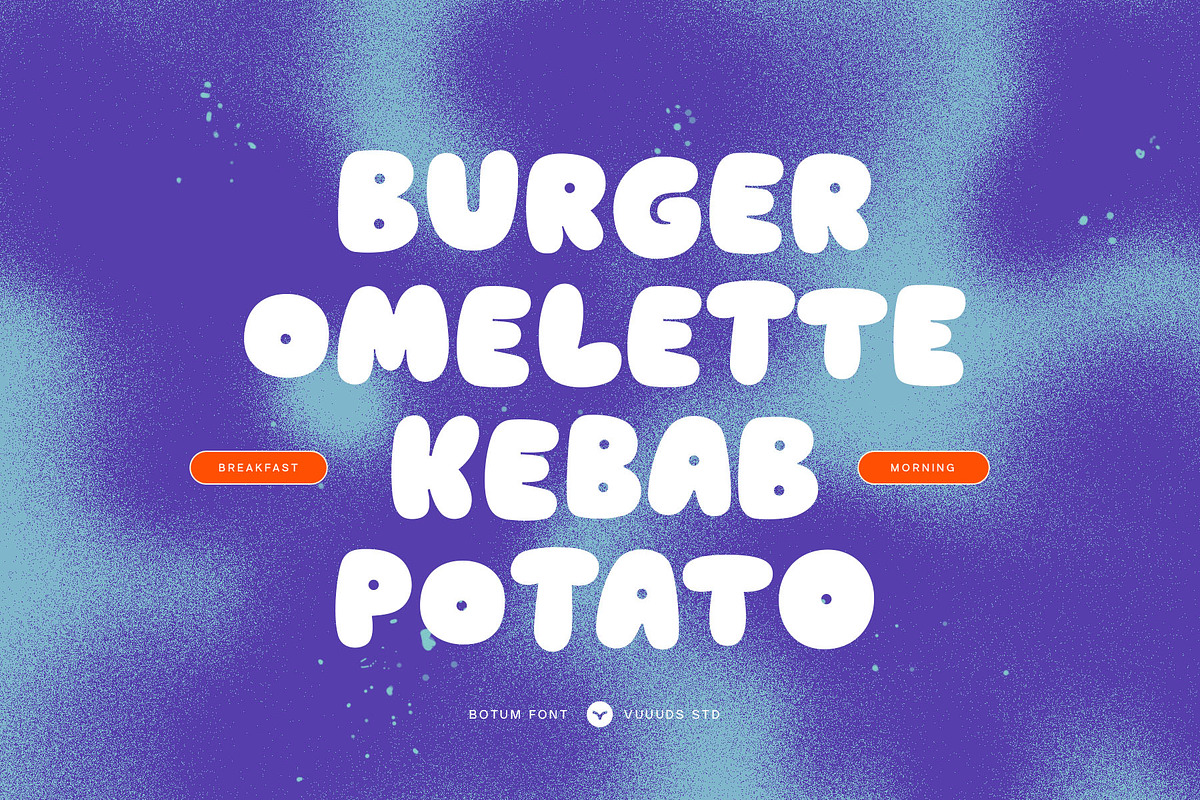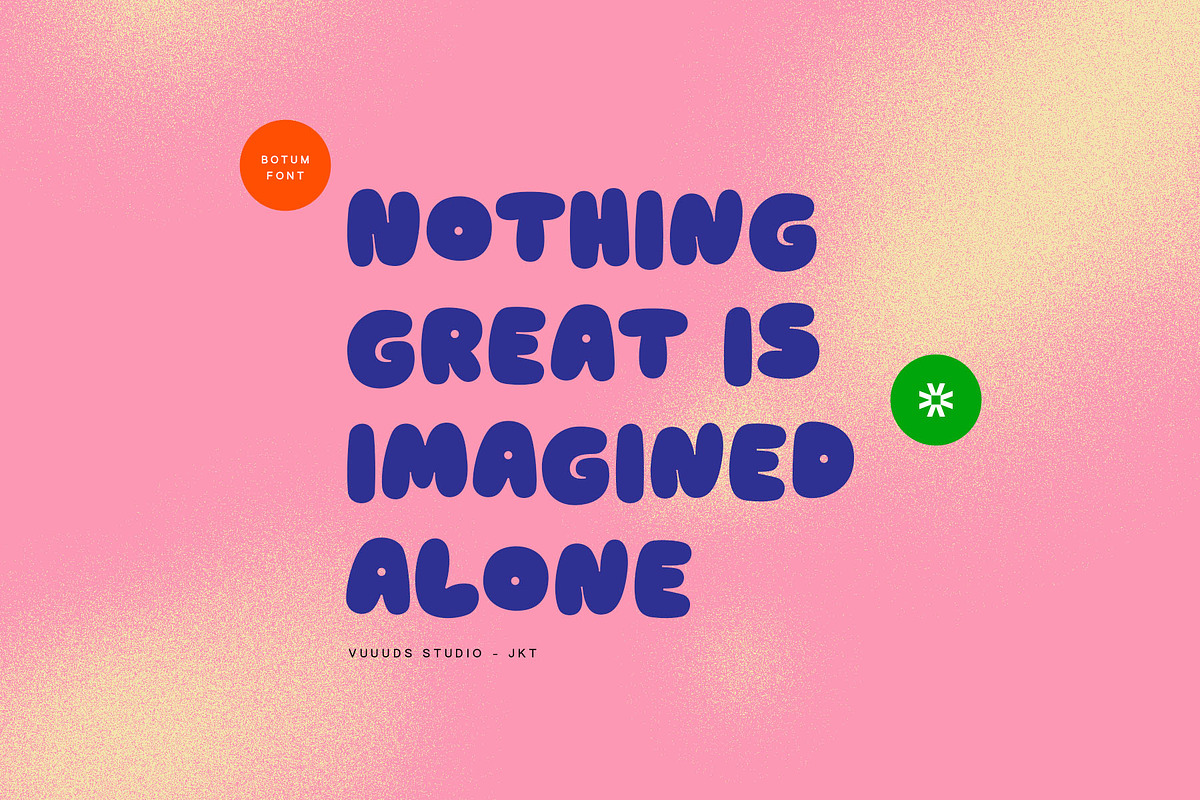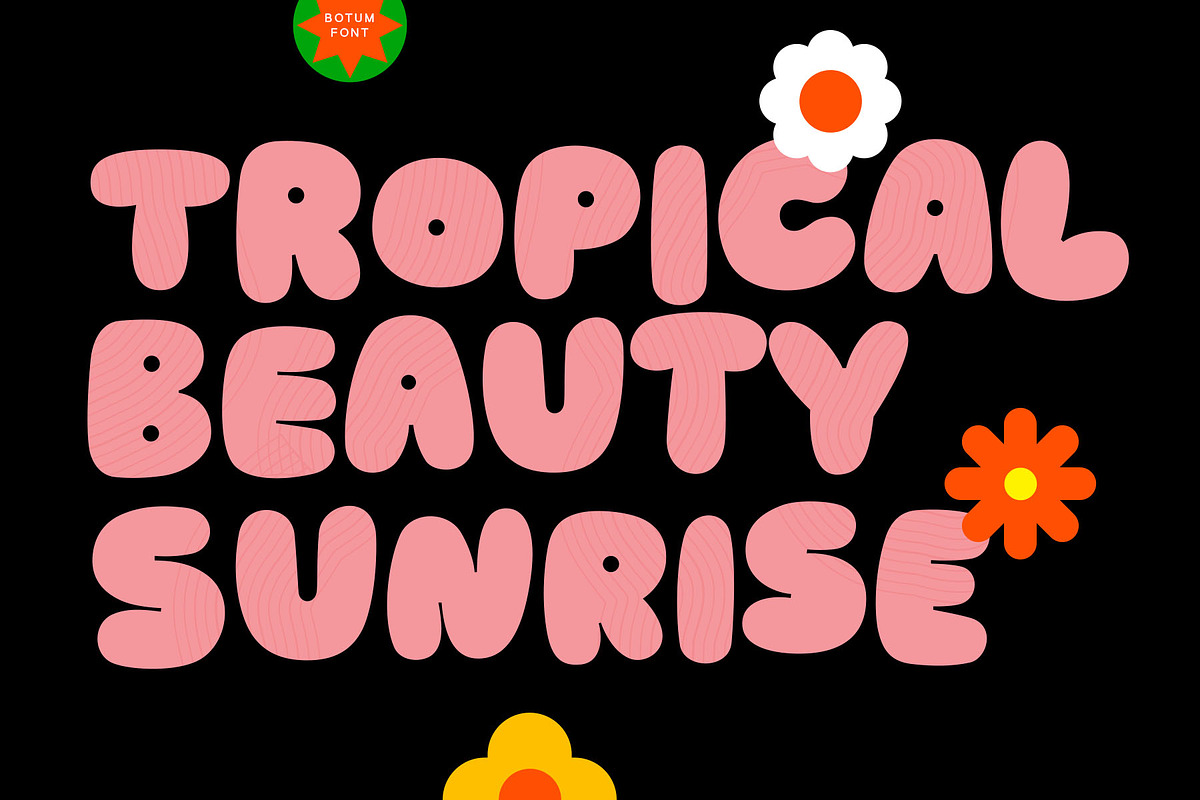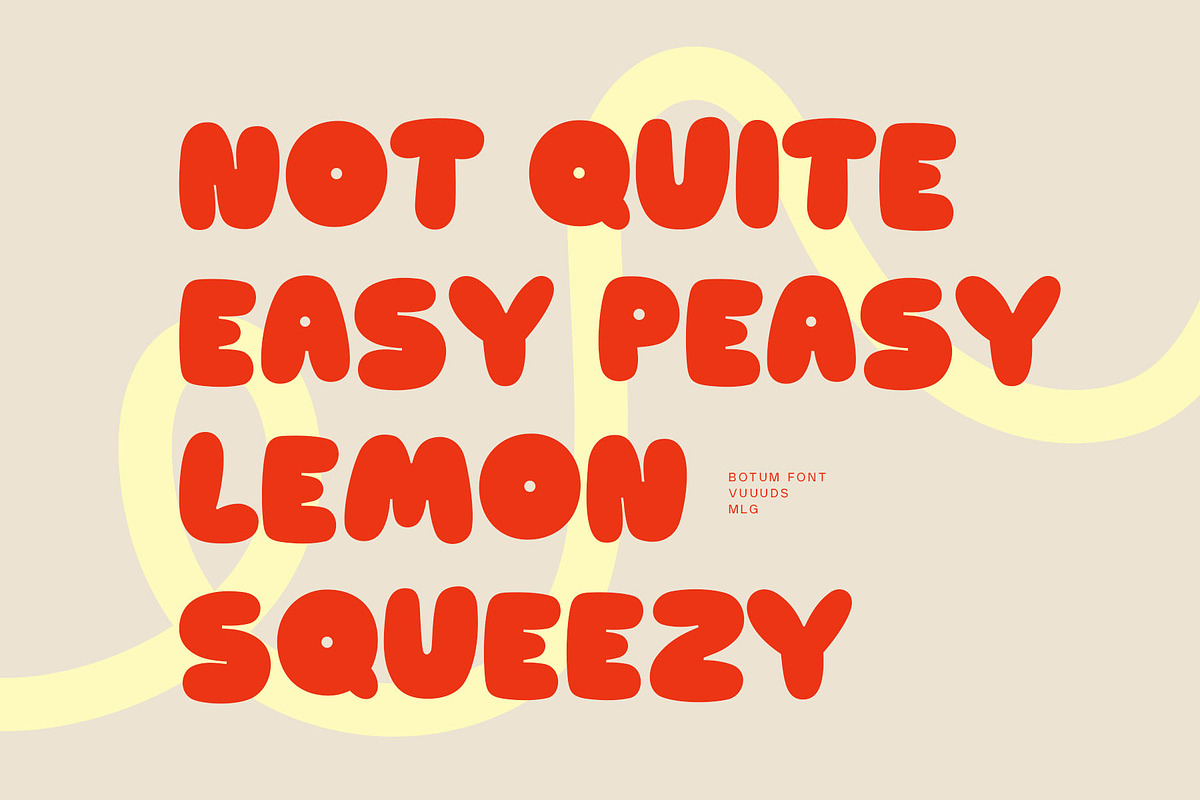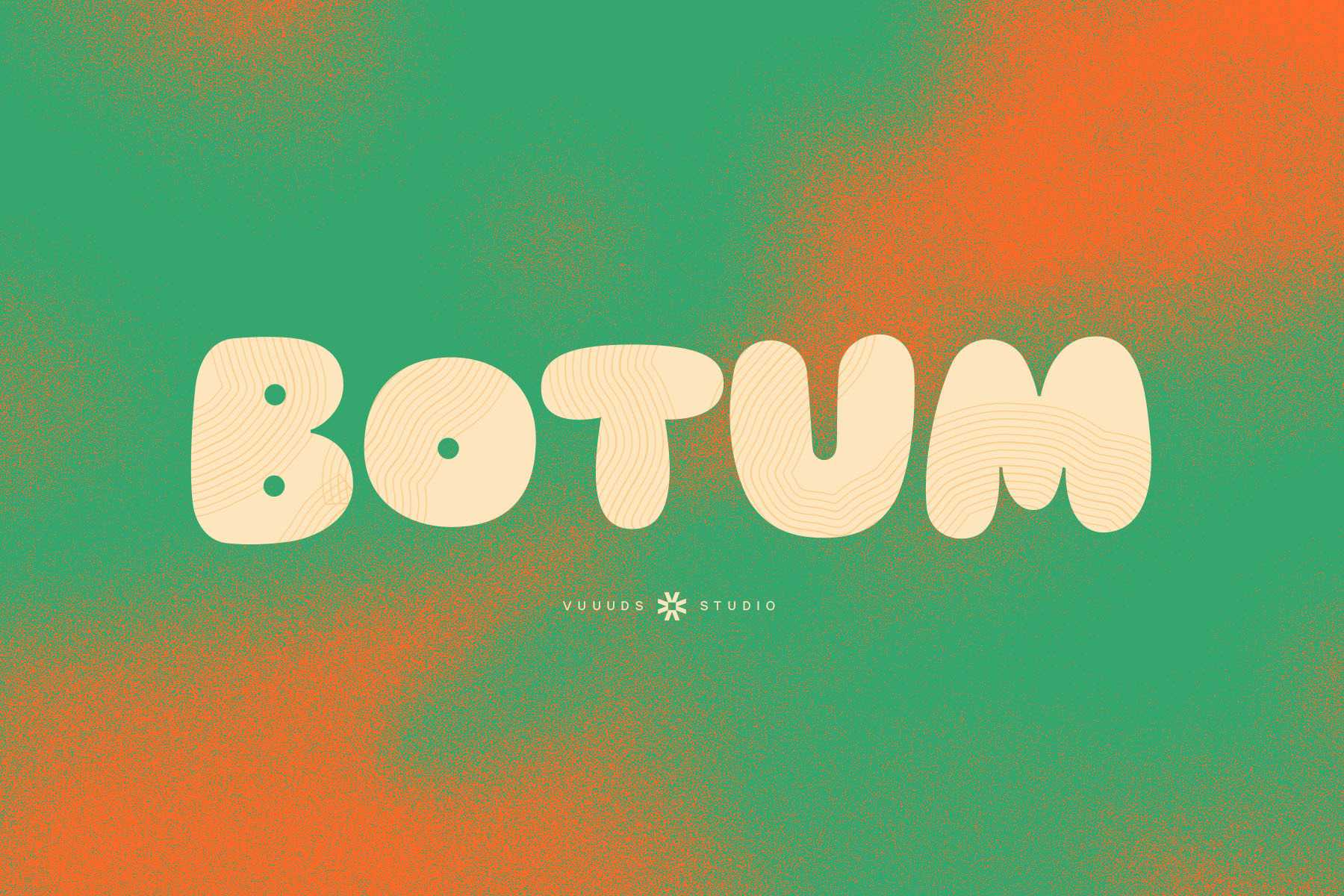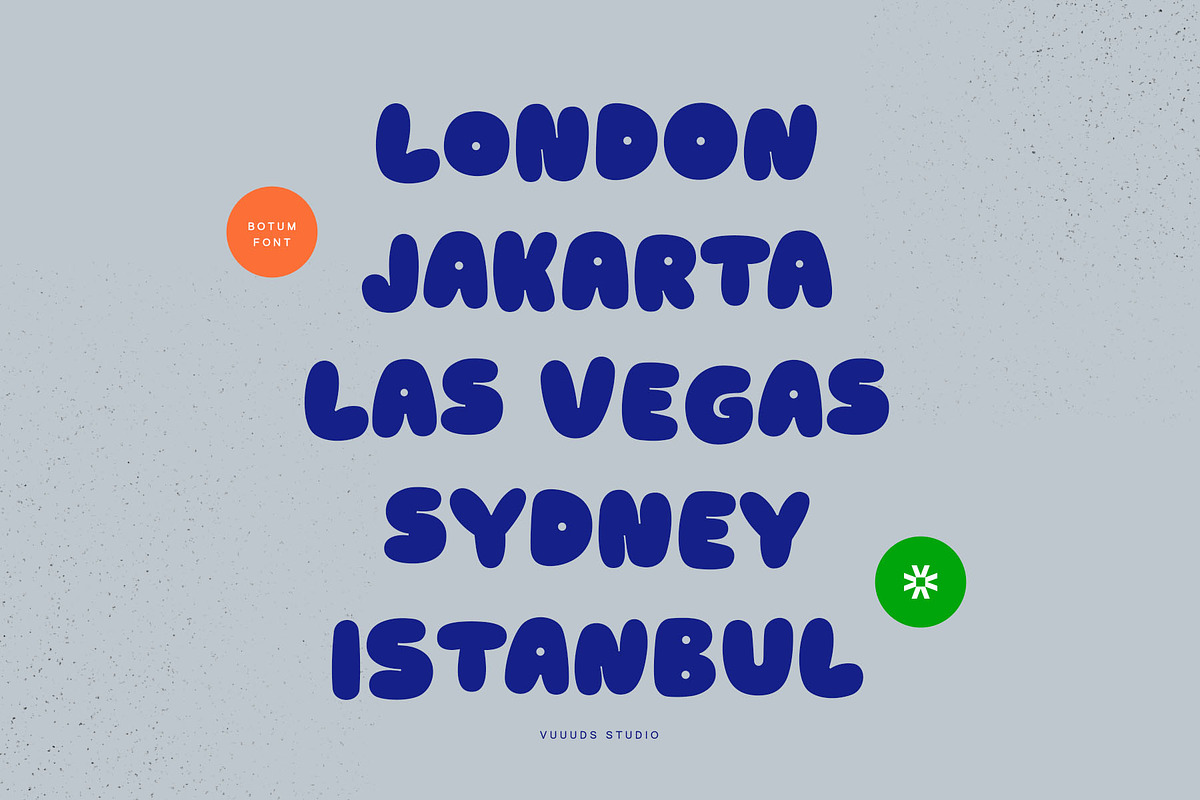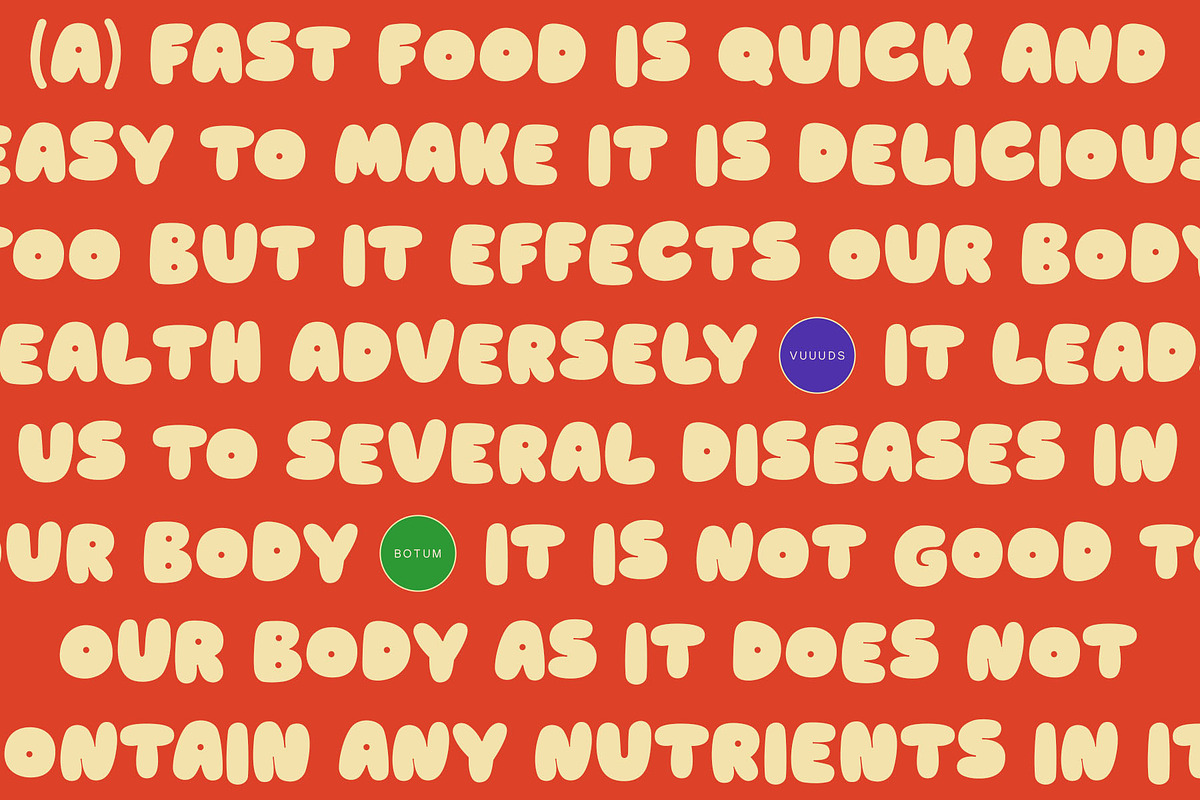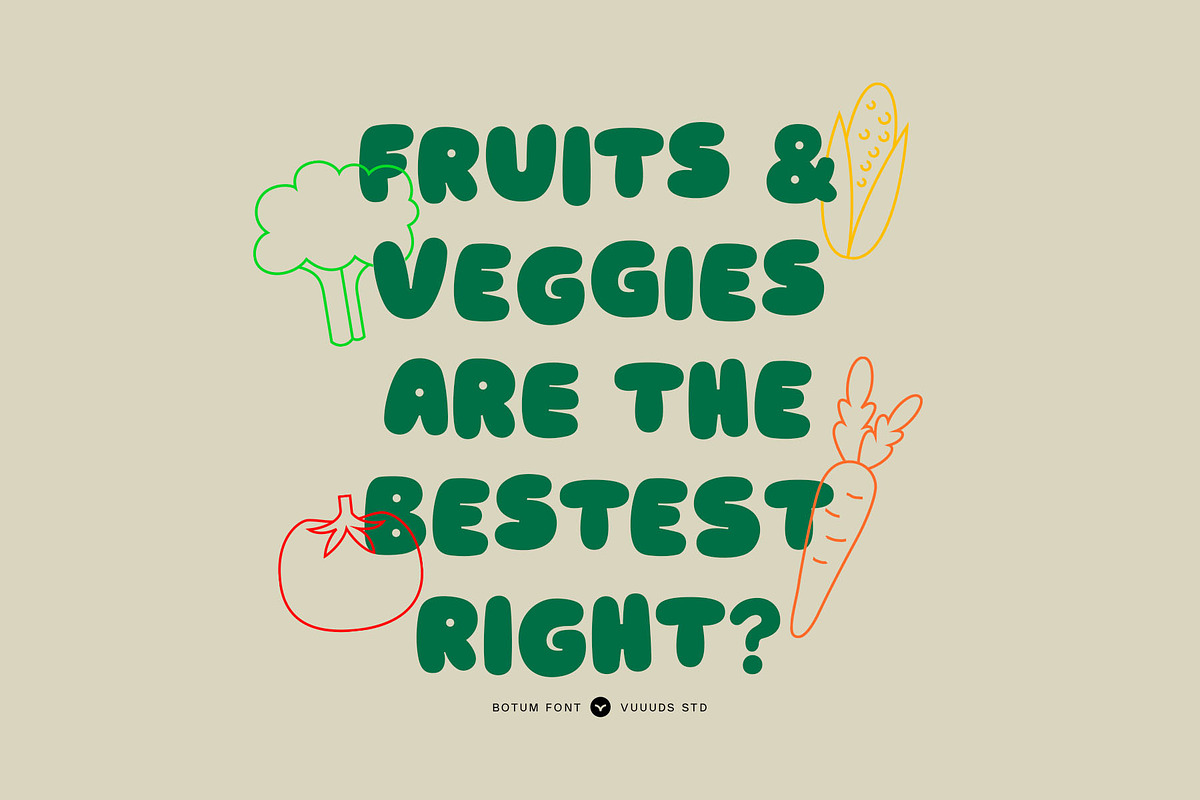
Botum Font
Introducing Botum Font!
Botum is bold rounded sans serif font, every single letters have been uniquely crafted.
Foreign languages support: ÀÁÂÃÄÅÆÇÈÉÊËÌÍÎÏÐÑÒÓÔÕÖØÙÚÛÜŸÝ àáâãäåæçèéêëìíîïðñòóôõöøùúûüýÿ ߀£¥©®™